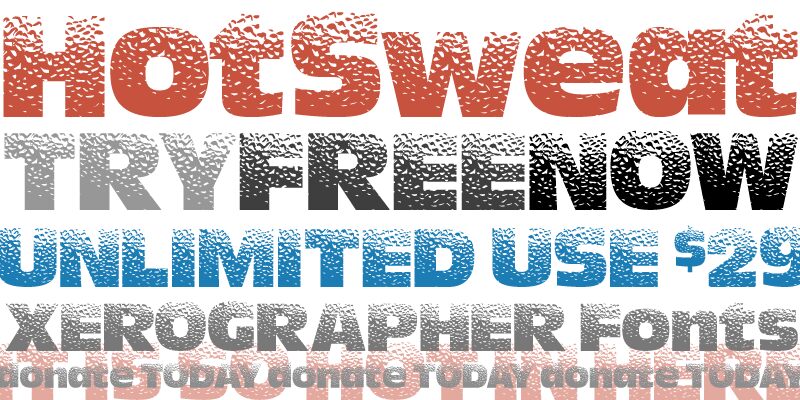
HotSweat, a free eroded display font copyrighted by Xerographer Fonts in 2012, uses broad, weighty letters covered in dense, scratch-like gaps. The damage gathers in uneven bands across the forms, giving the lettering a scorched, distressed surface rather than a softly weathered finish.
Concert posters are its strongest setting, especially for punk, metal, or noisy electronic events that suit the restless texture. It also fits album artwork and streetwear graphics. On beverage packaging or skate merchandise, the broken marks can become part of a larger field of splatters, grain, and rough illustration.